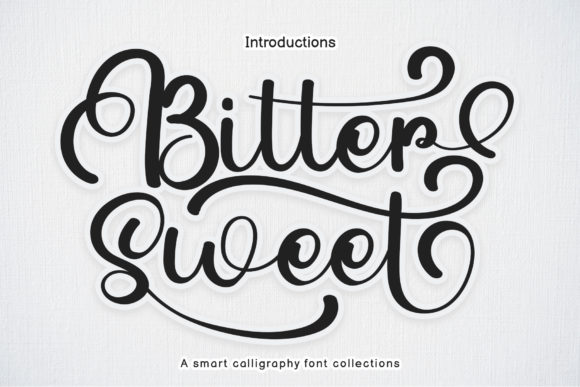
Introducing Bitter Sweet, a script font that will add a touch of elegance and charm to your Christmas designs. With its flowing curves and delicate serifs, Bitter Sweet is perfect for creating festive and eye-catching Christmas cards, invitations, and social media posts.
Whether you're a professional designer or just looking to create something special for the holidays, Bitter Sweet is the perfect choice. This gorgeous script font is easy to use and will make your Christmas designs stand out from the crowd.
With its PUA encoding, Bitter Sweet allows you to easily access all of the glyphs and swashes, giving you endless possibilities for customization. Create stunning headers, eye-catching logos, and beautiful social media graphics with just a few clicks.
Immerse yourself in the magic of Christmas with Bitter Sweet, the script font that captures the essence of the holiday season. Whether you use it for personal projects or commercial designs, Bitter Sweet is sure to impress. Add a touch of elegance and charm to your Christmas designs with Bitter Sweet, the script font that will make your creations shine.
* Create elegant and captivating Christmas designs
* Easily access glyphs and swashes with PUA encoding
* Perfect for Christmas cards, invitations, and social media posts
* Suitable for both professional designers and hobbyists
* Add a touch of elegance and charm to your Christmas designs